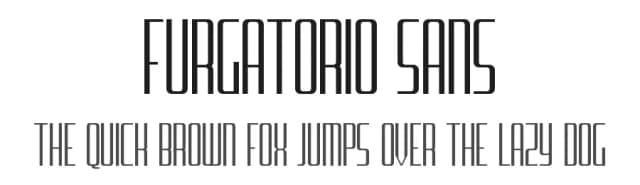
About Furgatorio Font
Furgatorio is a decorative font designed by Aaron Amar. It includes 173 glyphs, a regular weight, TTF (TrueType) format, and 209 languages. Furgatorio is free to download; check the license details on this page before commercial use. Decorative fonts like Furgatorio work best for logos, posters, packaging, and standout headlines.
Furgatorio Font is a decorative font that shines as a display or heading face. Pair it with a clean sans-serif or serif font for body text β the contrast creates a clear hierarchy while the two styles stay balanced and easy to read.
Furgatorio Font
by Aaron Amar